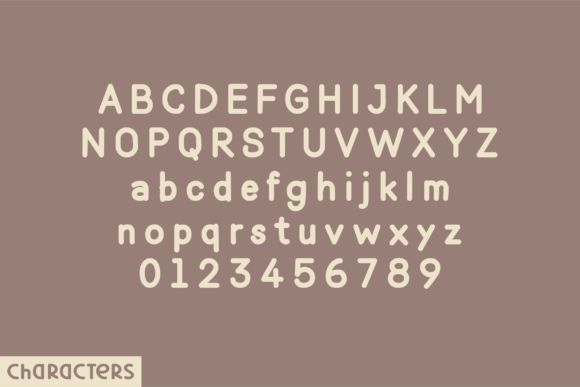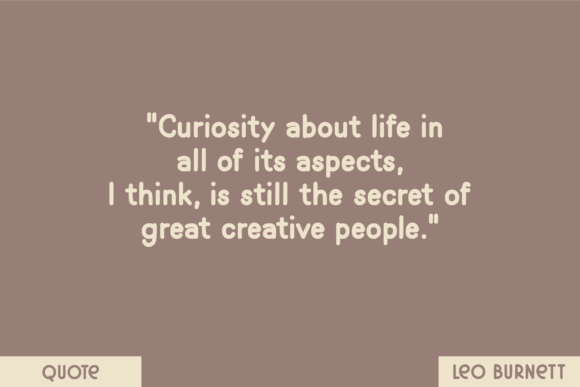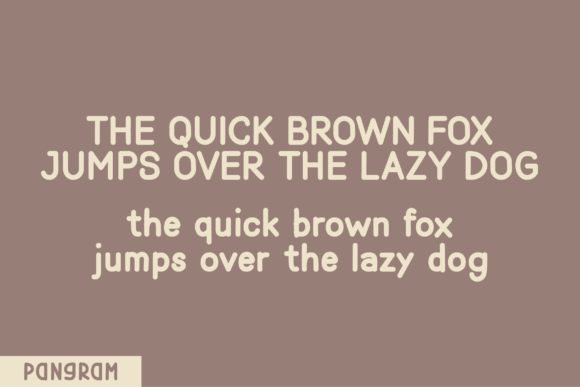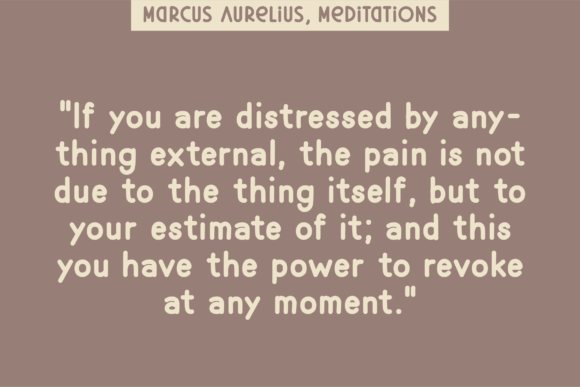
Introducing Fluffy Font: The Ultimate Sans Serif Font for Classic Designs
Are you a designer or crafter looking for a font that adds a touch of classic elegance to your designs? Look no further than Fluffy Font, a natural sans serif font that’s perfect for quotes, notes, tees, and any product design that needs a timeless appeal. In this article, we’ll dive into the world of Fluffy Font and explore its features, benefits, and uses.
What is Fluffy Font?
Fluffy Font is a beautiful, hand-crafted sans serif font that’s designed to bring a sense of simplicity and sophistication to your designs. With its clean lines, rounded edges, and natural feel, Fluffy Font is the perfect choice for designers who want to create classic, eye-catching designs that stand out from the crowd.
Key Features of Fluffy Font
- Natural Sans Serif Design: Fluffy Font features a natural sans serif design that’s perfect for creating clean, elegant designs that are easy to read.
- Classic Touch: With its timeless appeal, Fluffy Font adds a classic touch to any design, making it perfect for quotes, notes, tees, and product designs.
- Highly Versatile: Fluffy Font is highly versatile and can be used for a wide range of design projects, from digital designs to print materials.
- Easily Readable: Fluffy Font is designed to be easily readable, making it perfect for body text, headings, and titles.
Benefits of Using Fluffy Font
So, why should you choose Fluffy Font for your design projects? Here are just a few benefits of using this amazing font:
- Save Time: With Fluffy Font, you can create professional-looking designs in no time. Its clean and elegant design makes it easy to pair with other fonts and design elements.
- Stand Out from the Crowd: Fluffy Font is a unique and distinctive font that will help your designs stand out from the crowd. Its classic touch and natural feel make it perfect for creating eye-catching designs.
- Perfect for Crafters: Fluffy Font is a great choice for crafters who want to add a personal touch to their designs. Its elegant design and highly versatile nature make it perfect for a wide range of crafting projects.
Uses of Fluffy Font
So, what can you use Fluffy Font for? The possibilities are endless! Here are just a few ideas to get you started:
- Quotes and Notes: Fluffy Font is perfect for creating inspiring quotes and notes that are easy to read and visually appealing.
- T-Shirts and Apparel: Add a classic touch to your t-shirt and apparel designs with Fluffy Font. Its highly versatile nature makes it perfect for a wide range of apparel designs.
- Product Design: Fluffy Font is a great choice for product designers who want to create classic, eye-catching designs that stand out from the crowd.
- Digital Designs: Fluffy Font is perfect for digital designs, including social media graphics, blog posts, and website designs.
Tips for Using Fluffy Font
Here are a few tips for using Fluffy Font in your designs:
- Pair with Other Fonts: Fluffy Font pairs well with other fonts, including serif fonts, script fonts, and bold fonts. Experiment with different font combinations to find the perfect look for your design.
- Use for Headings and Titles: Fluffy Font is perfect for headings and titles. Its clean and elegant design makes it easy to read and visually appealing.
- Experiment with Colors: Fluffy Font looks great in a wide range of colors. Experiment with different colors to find the perfect look for your design.
In conclusion, Fluffy Font is a beautiful, natural sans serif font that’s perfect for designers and crafters who want to add a classic touch to their designs. With its clean lines, rounded edges, and highly versatile nature, Fluffy Font is the perfect choice for a wide range of design projects. Whether you’re creating quotes, notes, tees, or product designs, Fluffy Font is the perfect choice. So why wait? Download Fluffy Font today and start creating stunning designs that stand out from the crowd!